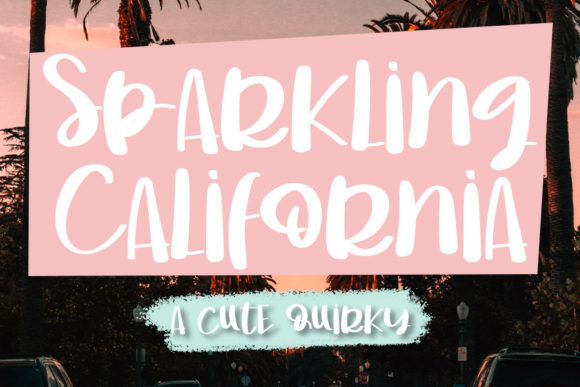
Buckle up for a typographic adventure with Sparkling California, the display font that's not just a font, but an experience! Its neatly crafted curves and meticulously etched details will leave you breathless. Picture this: your designs transformed into captivating masterpieces, your business names radiating with personality, and your creative projects sparkling with originality.
Unleash your inner artist and let Sparkling California take you on a journey of limitless possibilities. Elevate your branding, captivate your audience, and leave a lasting impression. From logos that demand attention to eye-catching headlines that dance off the page, Sparkling California is your ticket to typographic greatness.
Immerse yourself in the world of Sparkling California and discover the font that's more than just a tool - it's an artistic expression. Its diverse character set, including uppercase, lowercase, numerals, and symbols, empowers you to weave words into visual tapestries. Unleash your creativity and let the letters flow effortlessly from your fingertips, transforming your designs into breathtaking works of art.
Welcome to the world of Sparkling California, where type isn't just ink on paper, but a symphony of visual delight. Its carefully balanced kerning and spacing create a harmonious rhythm that guides the eyes effortlessly across your designs. Experience the joy of effortless readability and let your message shine through with clarity and impact.
Don't settle for ordinary fonts that blend into the background. Embrace Sparkling California and watch as your designs take center stage. Its unique and captivating style commands attention, leaving your audience mesmerized. Prepare to witness heads turning, hearts fluttering, and jaws dropping as your creations ignite imaginations and inspire conversations.
Sparkling California is your secret weapon in the battle for attention. Its meticulously crafted swashes and stylistic alternates are like secret codes, unlocking a world of typographic artistry. Add a touch of whimsy, a dash of elegance, or a burst of personality with just a few clicks. Experiment fearlessly and watch as your designs metamorphose into captivating masterpieces.